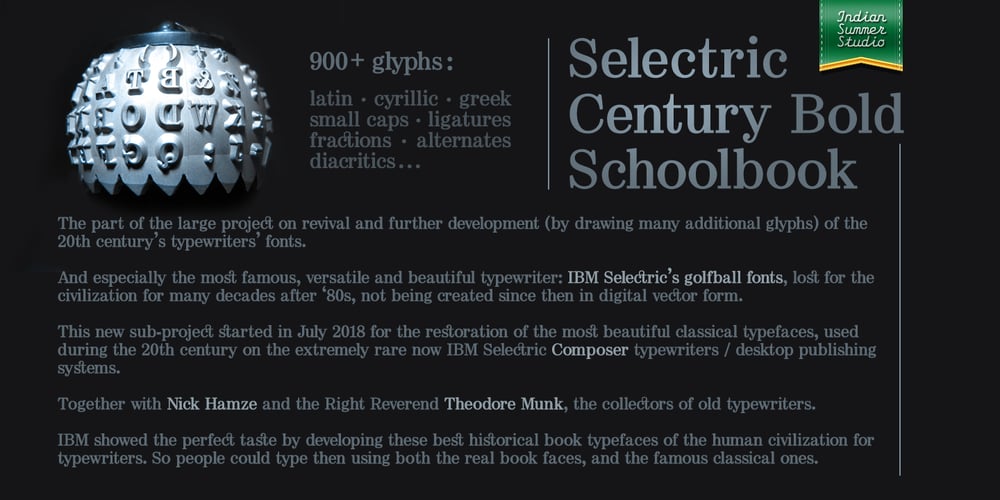
Selectric Century Font Family was designed by Linn Boyd Benton, Morris Fuller Benton, Alexander Bobrov and published by Indian Summer Studio. Selectric Century contains 1 styles and family package options. Also known as Schoolbook. 900+ glyphs. After Linn Boyd Benton’s and Morris Fuller Benton’s 1894 lower contrast version of Scotch Modern, Didone. The part of the large project on revival and further development (by drawing many additional glyphs) of the 20th century’s typewriters’ fonts. And especially the most famous, versatile and beautiful typewriter: IBM Selectric’s golfball fonts, lost for the civilization for many decades after ‘80s, not being created since then in digital vector form. This new sub-project started in July 2018 for the restoration of the most beautiful classical typefaces, used during the 20th century on the extremely rare now IBM Selectric Composer typewriters / desktop publishing systems. Together with Nick Hamze and the Right Reverend Theodore Munk, the collectors of old typewriters. IBM showed the perfect taste by developing these best historical book typefaces of the human civilization for typewriters. So people could type then using both the real book faces, and the famous classical ones.